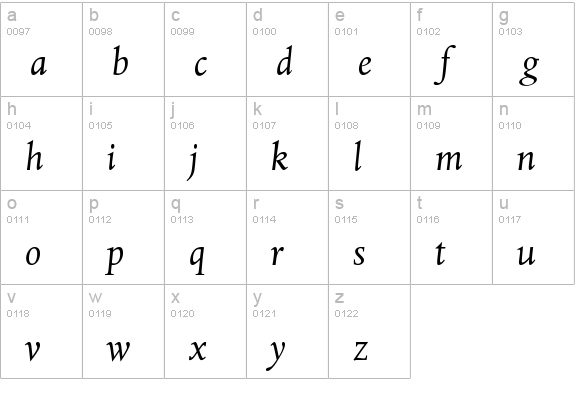
DTLAlbertinaST Italic Font Details
DTLAlbertinaST Italic is a distinctive, italic variant in the DTLAlbertinaST typeface family \xE2\x80\x94 well suited to design and typography projects.
DTLAlbertinaST Italic is a graceful and elegant typeface that exudes sophistication and style. Its slanted letterforms create a sense of fluidity and movement, making it ideal for adding a touch of dynamism to any design project. The italicized characters of DTLAlbertinaST bring a sense of drama and flair, making it perfect for conveying a sense of luxury and refinement. What sets DTLAlbertinaST Italic apart is that it is available for free download at FontsMarket.com. This means that you can access this exquisite font without any cost, making it a valuable addition to your font library. Whether you are working on a branding project, editorial design, or any other creative endeavor, DTLAlbertinaST Italic will elevate your work with its timeless beauty and sophistication. Download it today and unleash the power of this stunning typeface in your designs.